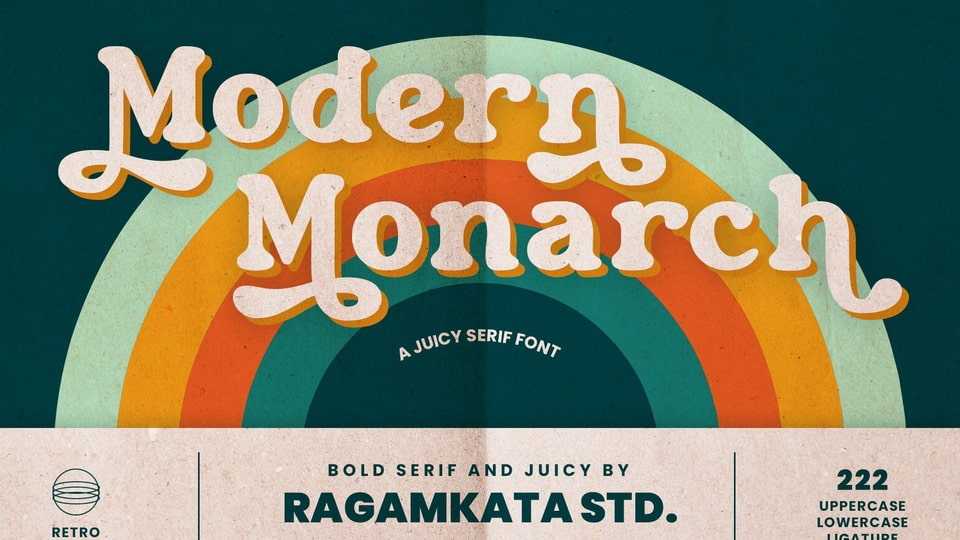
Download Modern Monarch font, a retro display serif typeface that exudes a classic charm and bold character and brings an elegant touch and evokes a sense of the past.